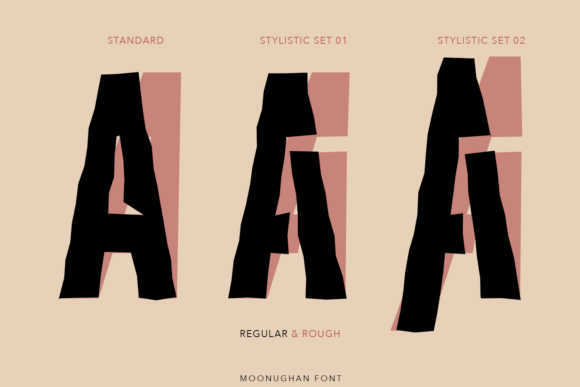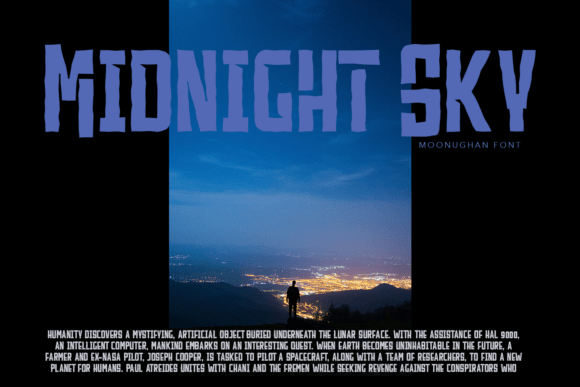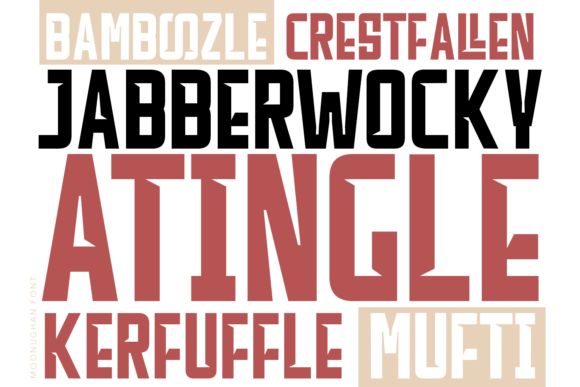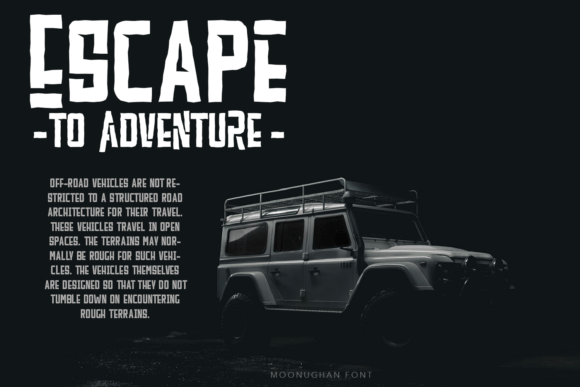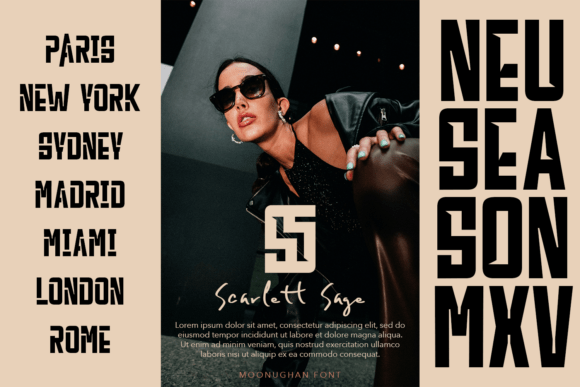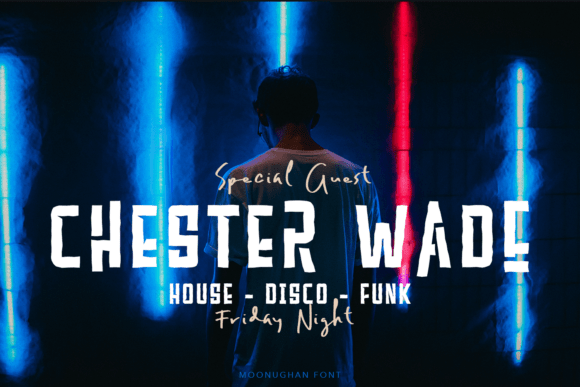
Introduction to Moonughan Font
Introducing Moonughan display typeface, regular and rough, packed with different ligatures and stylistic alternates, making it easy to create unique characteristics to your projects.
This font is the ultimate choice for creating stunning logos and headlines Perfect for branding, posters, apparel, magazine, labels, and much more.